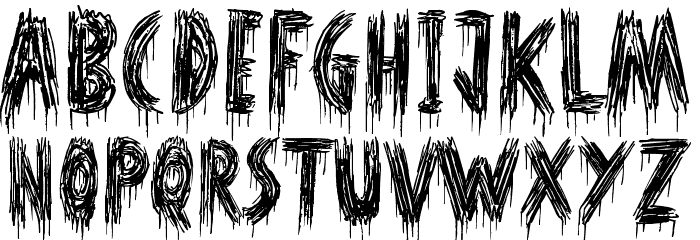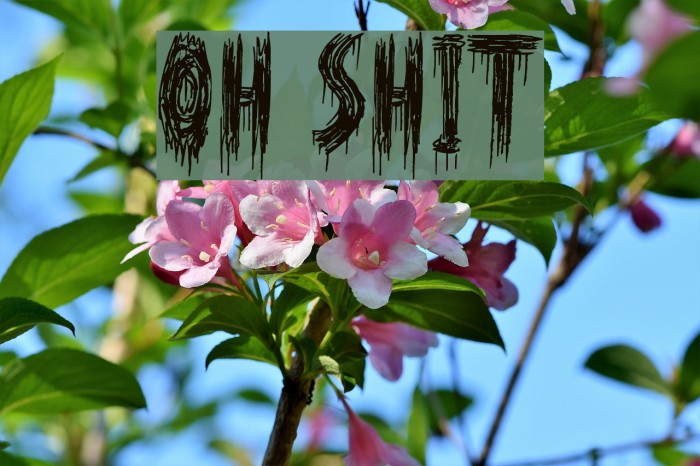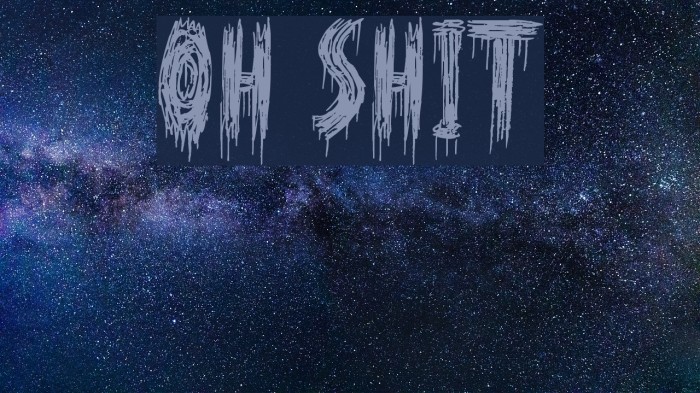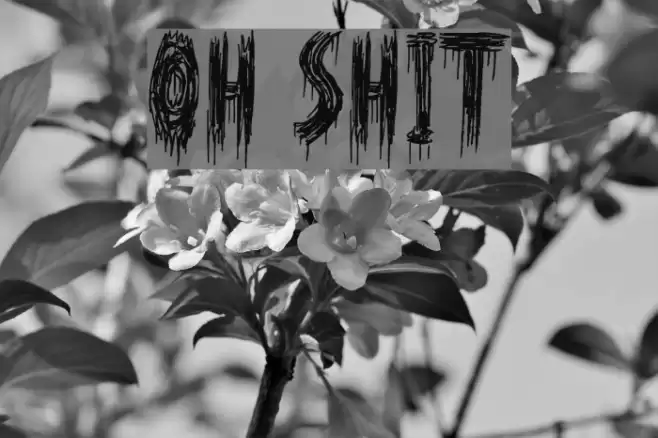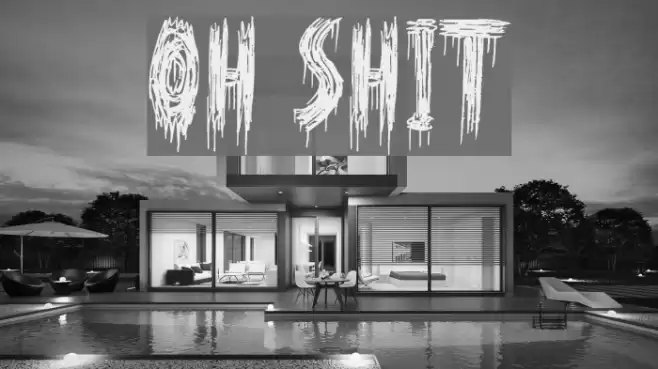
Oh Shit Font
This font features a highly decorative and grungy style, characterized by its dripping, jagged edges that give it a chaotic and distressed appearance. The letters are bold and have an irregular, hand-drawn quality, reminiscent of graffiti or horror-themed designs. Each character appears as if it is melting or bleeding, adding to the dramatic and edgy aesthetic. The uppercase and lowercase letters maintain this consistent style, making it suitable for projects that require a strong visual impact. The numerals and special characters also follow the same design, ensuring uniformity across all elements.
A bold, grungy font with dripping, jagged edges for a chaotic look.
- Proposed Projects: Ideal for horror-themed posters, album covers, Halloween invitations, or any project needing a dramatic and edgy typeface.